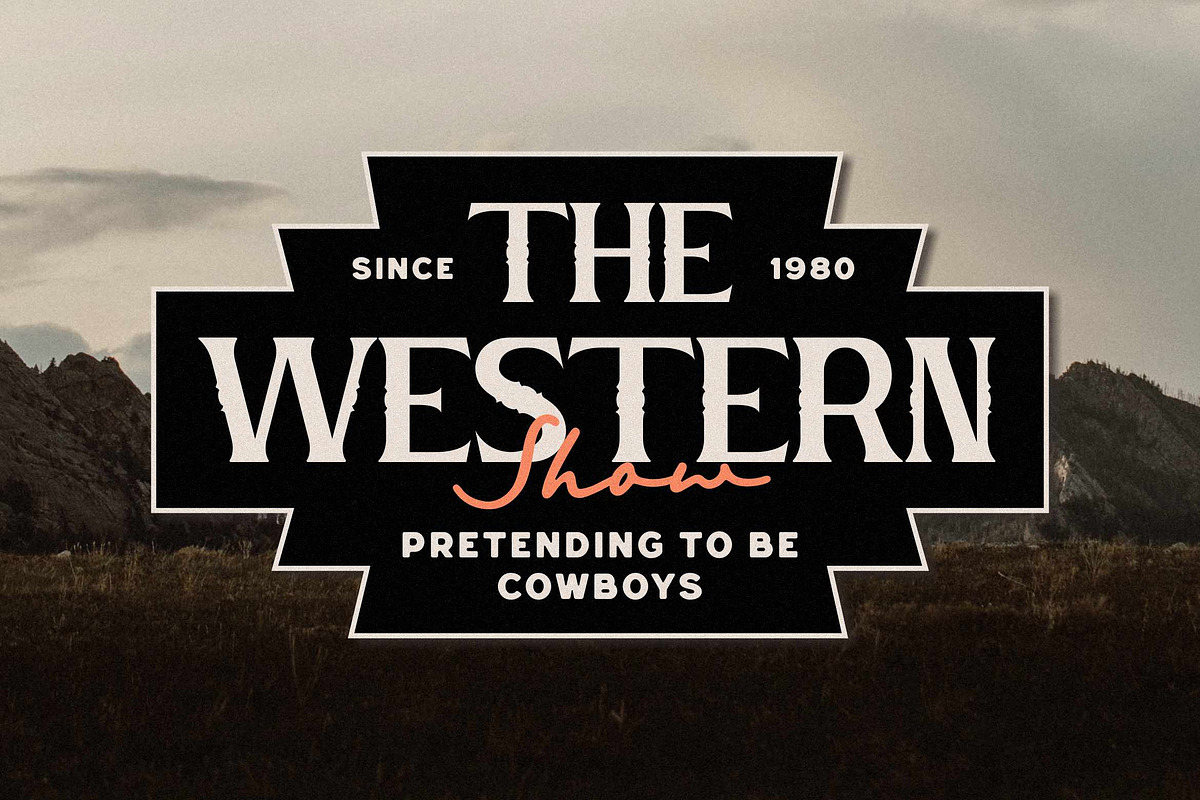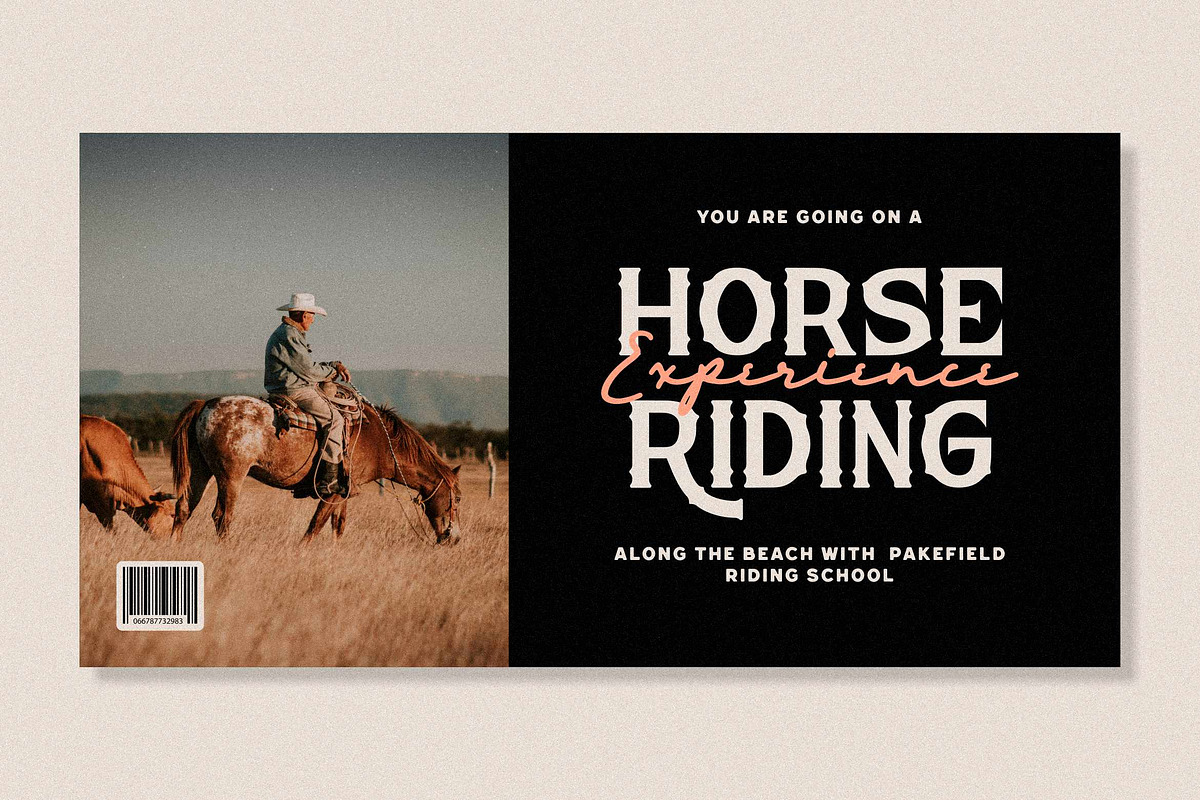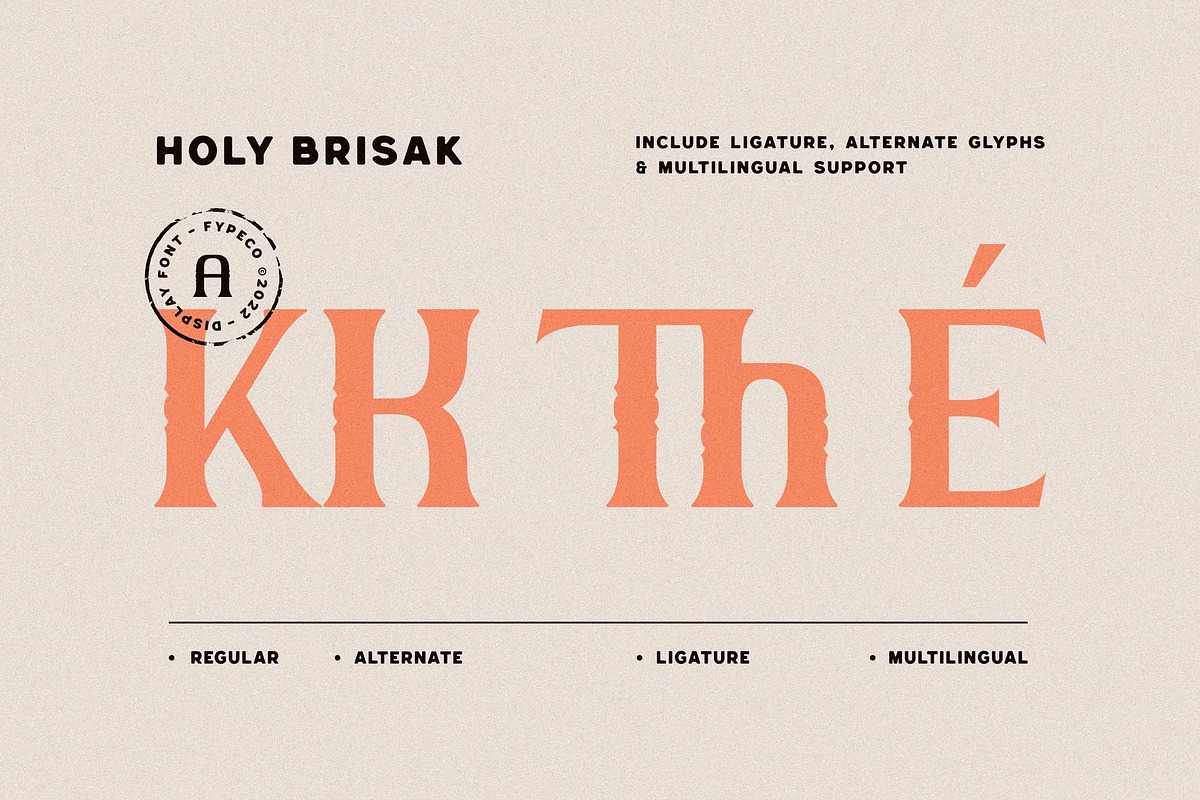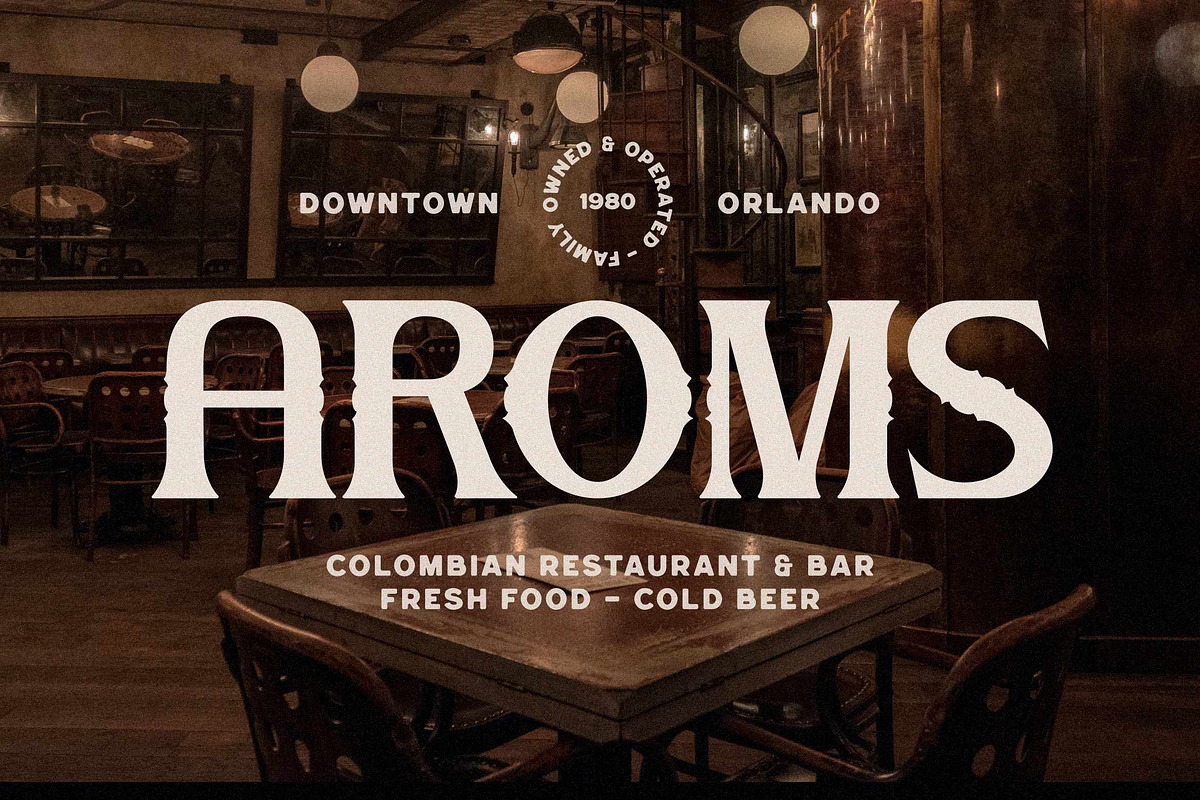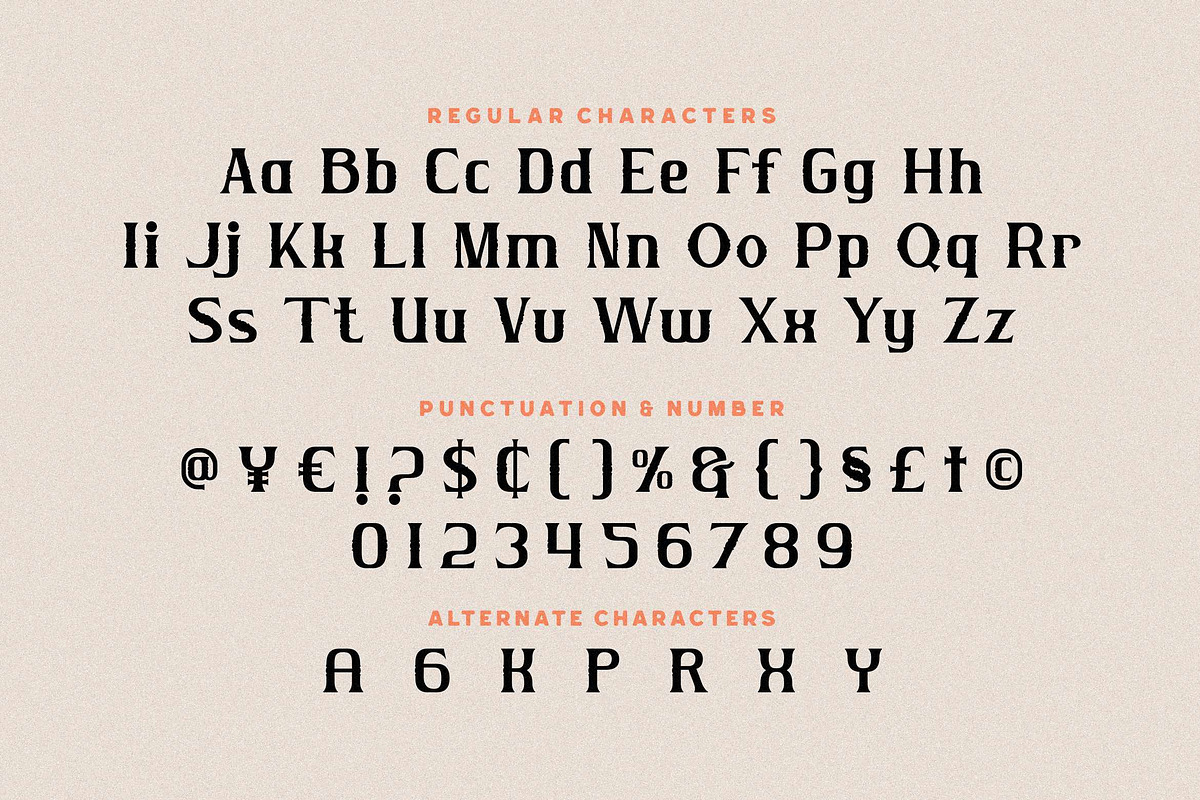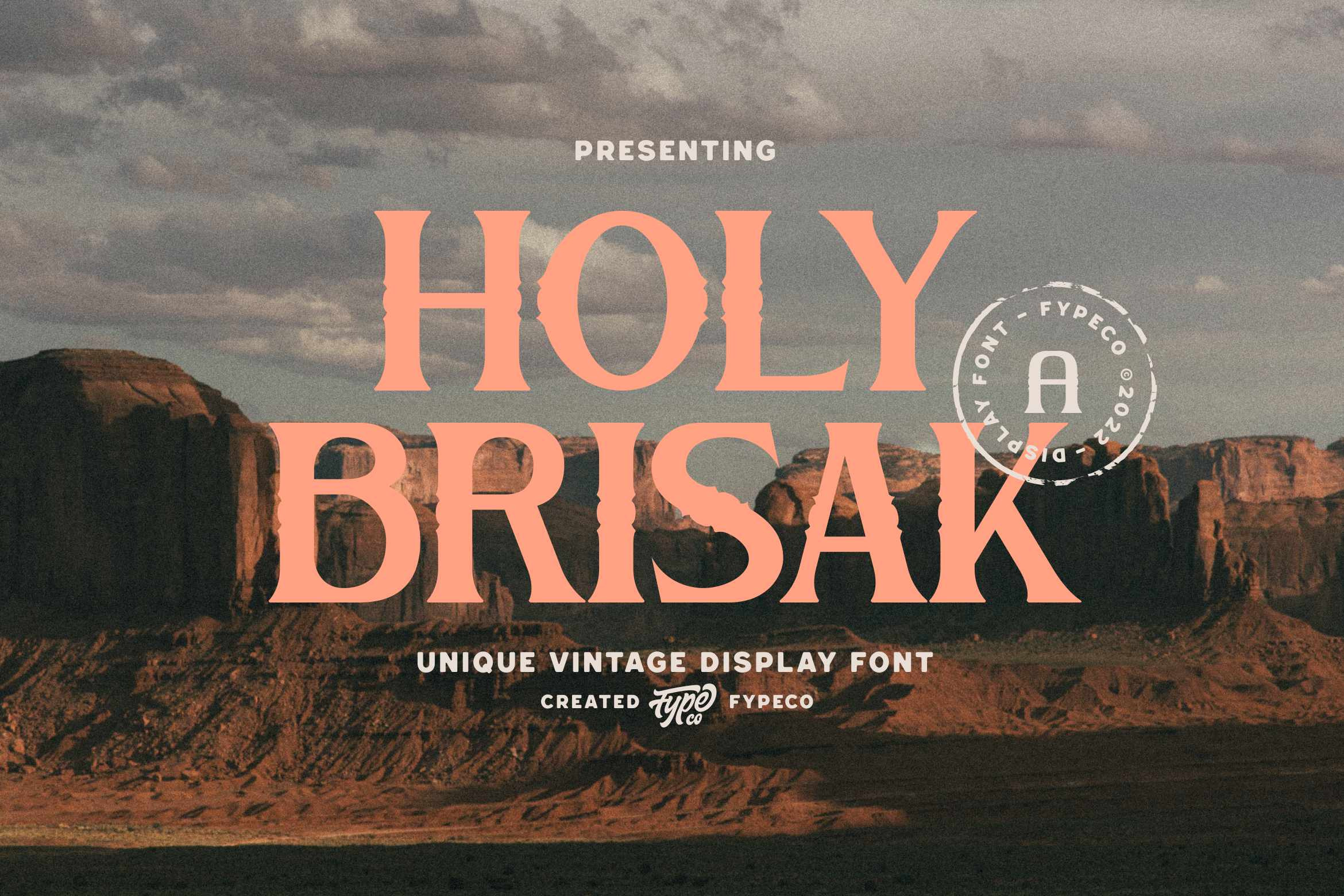
Holy Brisak - Vintage Display font
Holy Brisak is a vintage serif display with unique detail. This font is wonderful to use in logos, designs, labels, clothes or anything you want with a touch of classic western. Holy Brisak comes with multilingual support also.
- Alternatives